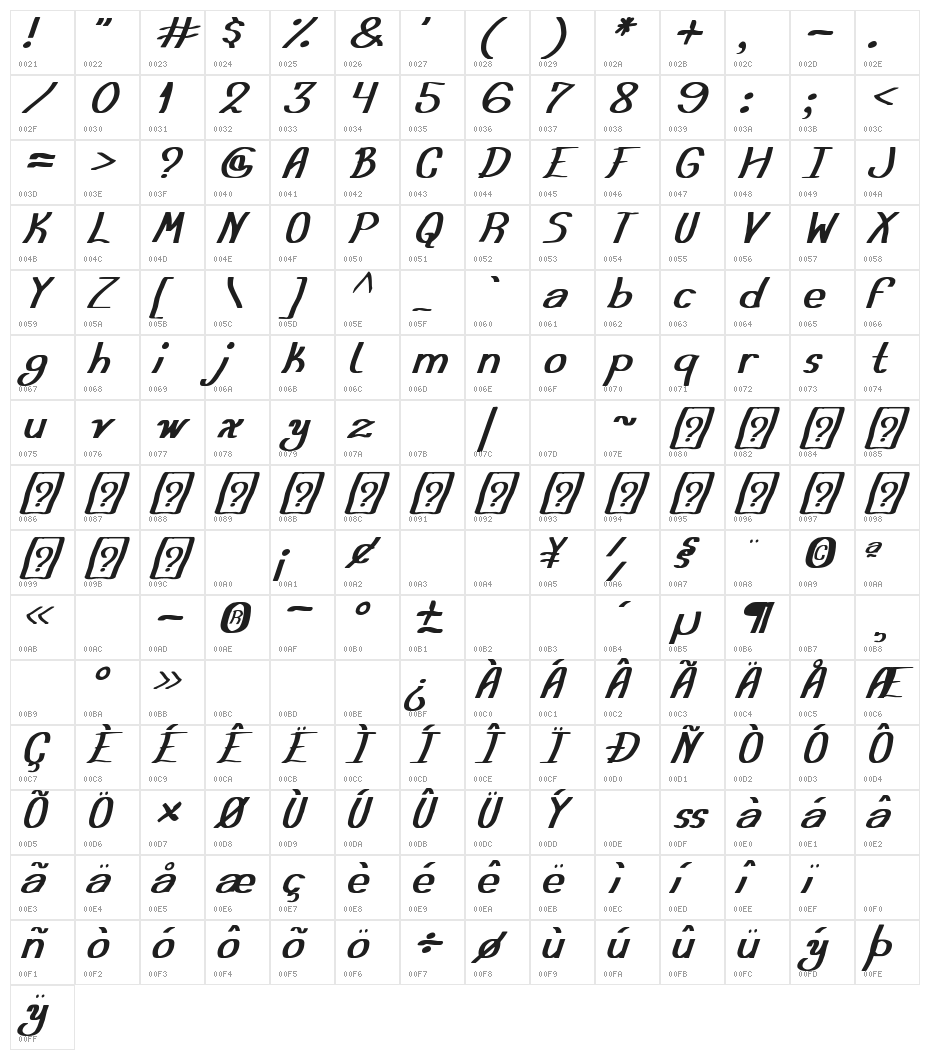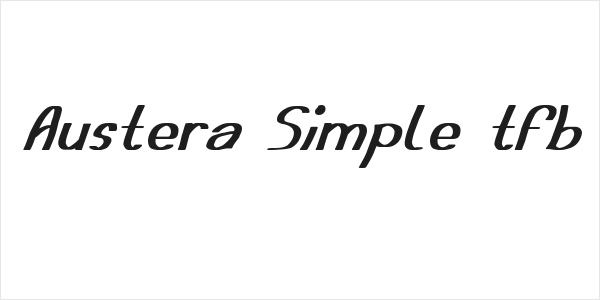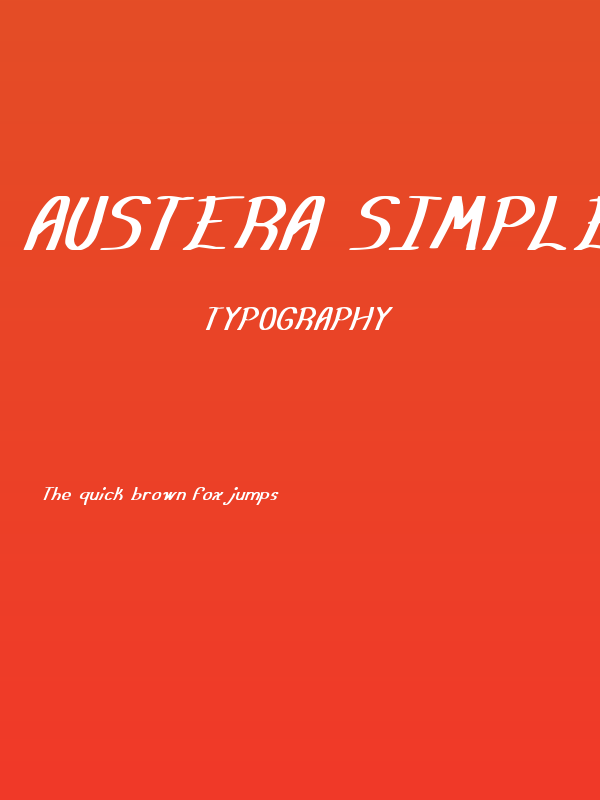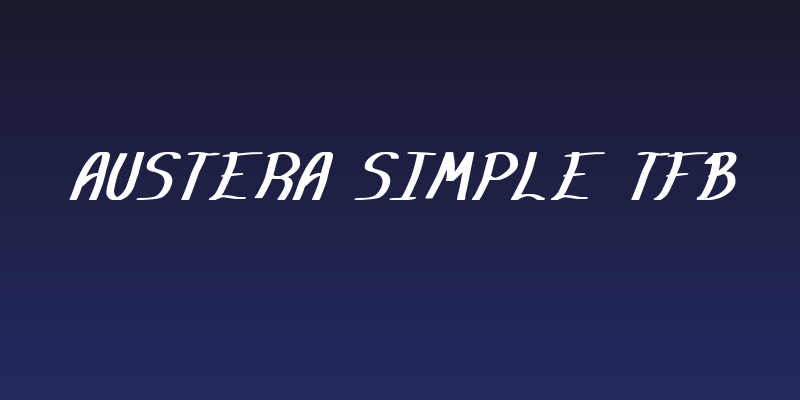
Austera Simple tfb Font
Austera Simple tfb Description
This font features a dynamic and flowing script style with a slight slant, giving it an elegant and sophisticated appearance. The characters are well-defined with smooth curves and a consistent stroke width, creating a harmonious and balanced look. The uppercase letters are bold and prominent, while the lowercase letters maintain a graceful and fluid form. The numerals are clear and easily distinguishable, complementing the overall aesthetic. Special characters are designed with the same attention to detail, ensuring versatility in various design contexts.